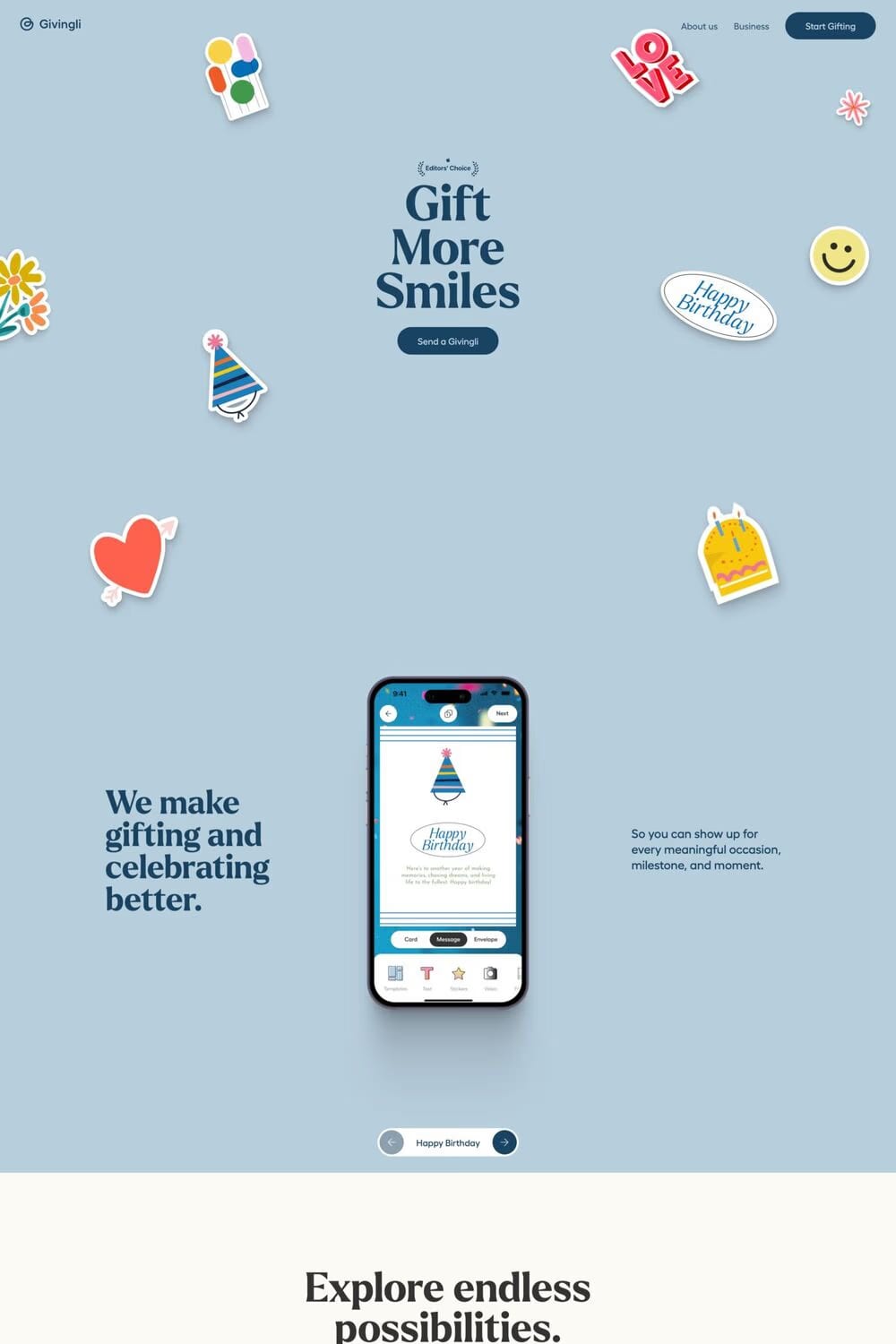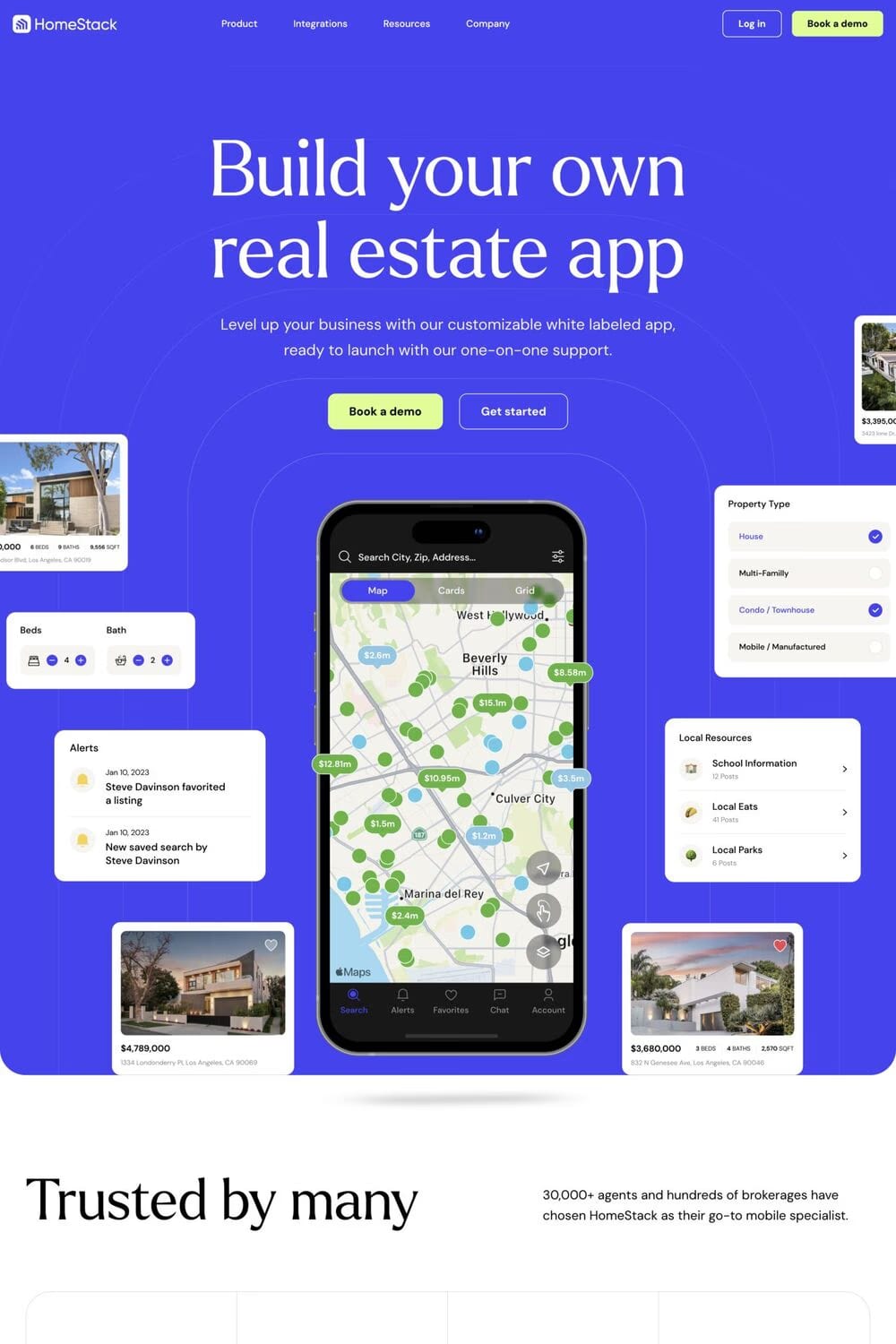
Larken is a serif typeface from Ellen Luff Type Foundry.
Larken is a confident serif. Designed to reflect nature, it creates a sense of natural softness and expressiveness. We pushed the concept into a usability focused direction, to works as a bold tool and beautiful communicator. Larken variable allows fluid design across 7 weights, italics and major latin based languages. True italics advance the aesthetics, bringing energy and making it suitable for modern design.
A1 features 2 websites using Larken, including Homestack and Givingli. They lean towards Colourful, Photography, and Animated design styles, and they’re most often built with Webflow.